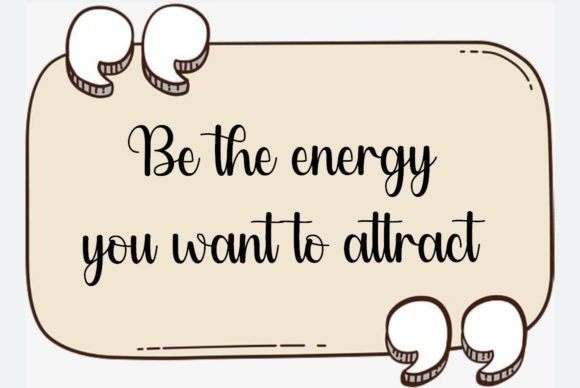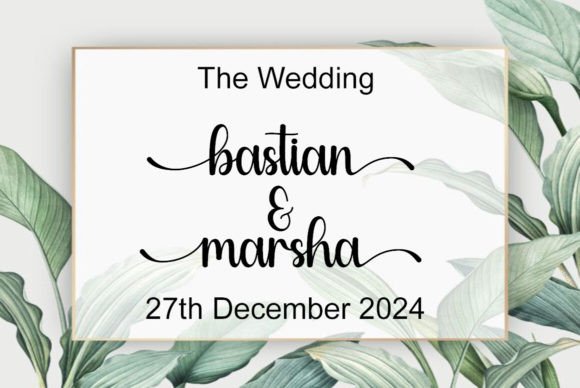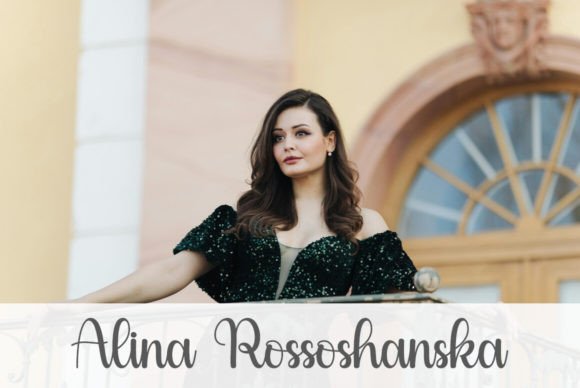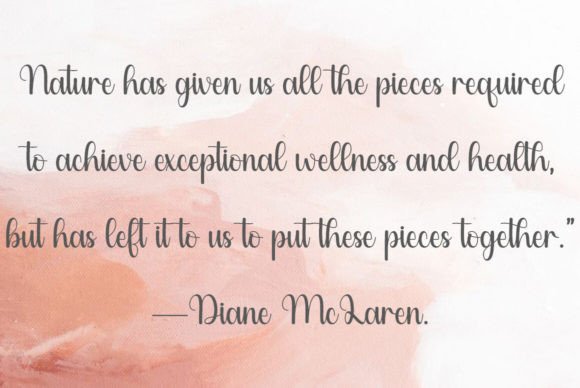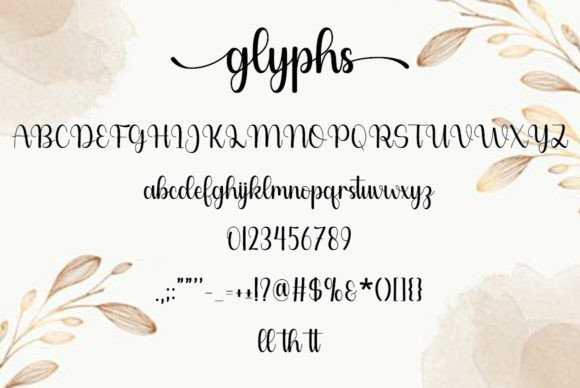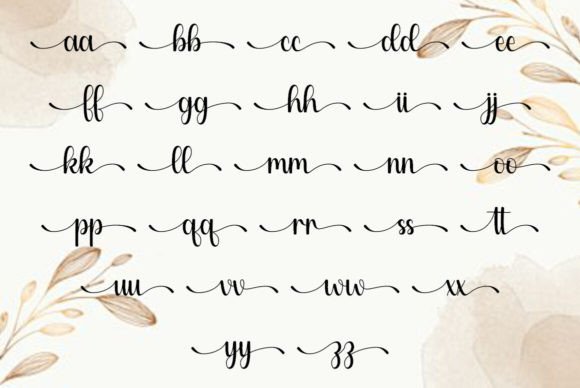
The Glyphs Font: A Handwritten Gem for Creative Projects
Have you ever been in the middle of a design project, and suddenly, you’re struck by a creative block? You’re searching for that perfect font to bring your vision to life, but nothing seems quite right. I recall a similar experience while working on a wedding invitation design for a client. The project required a touch of elegance and sophistication, but my usual go-to fonts just weren’t cutting it. That’s when I stumbled upon the Glyphs Font, and it completely transformed my design.
A Personal Review: What I Love About Glyphs Font
The Glyphs Font is a stylish and incredibly elegant handwritten font that has become a staple in my design toolkit. Here’s what I love about it:
- ✨ Elegant and sophisticated: Glyphs Font adds a touch of luxury to any design, making it perfect for wedding invitations, thank you cards, and other special occasions.
- ✅ PUA encoded: The font is PUA encoded, which means you can access all the glyphs and alternates with ease, giving you a wide range of creative possibilities.
- 🌈 Versatile: Glyphs Font looks stunning on various design materials, including quotes, greeting cards, logos, business cards, and more.
While Glyphs Font is an excellent choice for many projects, there are a few minor quirks to be aware of:
- 🤔 Limited use for body text: Due to its elegant and cursive nature, Glyphs Font might not be the best choice for lengthy body text. It’s better suited for headings, titles, or short paragraphs.
- ⚠️ Requires OpenType features: To get the most out of Glyphs Font, you’ll need to use software that supports OpenType features, such as Adobe Photoshop or Illustrator.
The Designer Inspiration Behind Glyphs Font
The Glyphs Font was designed with the intention of creating a beautiful and elegant handwritten font that would add a touch of luxury to any design. The designer aimed to craft a font that would be versatile and suitable for a wide range of creative projects, from wedding invitations to business cards.
| What is the Glyphs Font suitable for? | The Glyphs Font is suitable for a wide range of design applications, including wedding invitations, thank you cards, quotes, greeting cards, logos, business cards, and more. |
| Is the Glyphs Font PUA encoded? | Yes, the Glyphs Font is PUA encoded, which means you can access all the glyphs and alternates with ease. |
| Does the Glyphs Font support OpenType features? | Yes, the Glyphs Font supports OpenType features, which allow you to access the glyphs and alternates. |